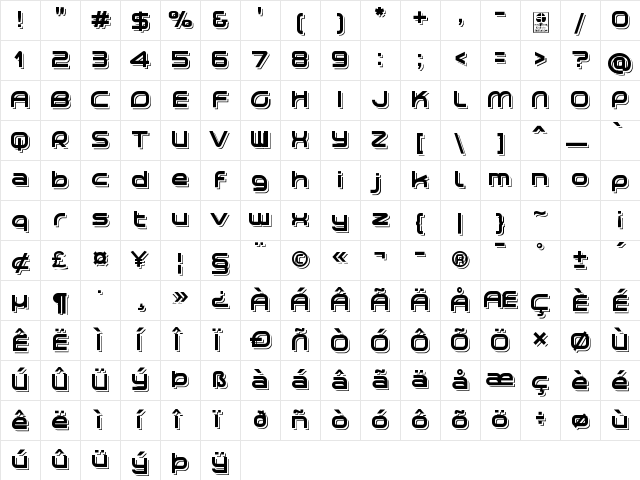
Planetium-X Shadowed Demo Regular
Design Context for Planetium-X Shadowed Demo Typeface
Planetium-X Shadowed Demo is built around its visual character rather than neutral utility — its distinctive forms are designed to make an impression at display sizes.
Font Pairing: Pair with a clean neutral sans-serif for body copy to let Planetium-X Shadowed Demo's character lead without overwhelming the composition.
Pro Tip: Treat Planetium-X Shadowed Demo as the centrepiece of your typographic hierarchy. One strong heading set in a decorative face can carry an entire layout.